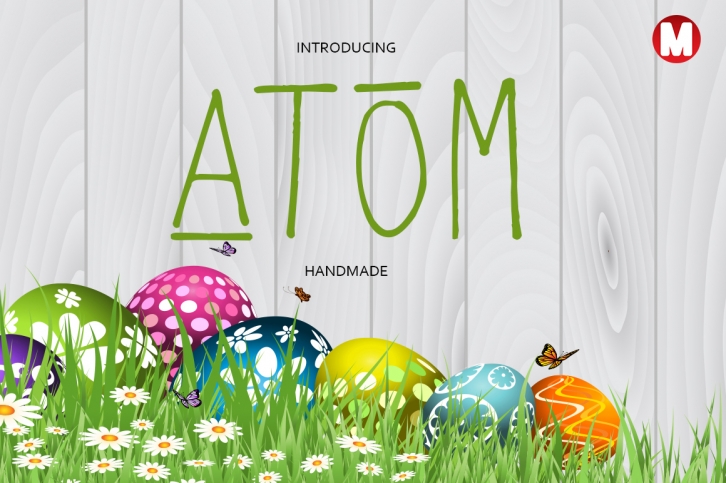
Atom is a trendy and unique font with an authentic style. It was designed by MagicHandStudio and it's a great choice for creative people who need such a font. It was released on May 12, 2016 and the file size is 2.7 MB. Atom will add an organic vibe to any design idea!